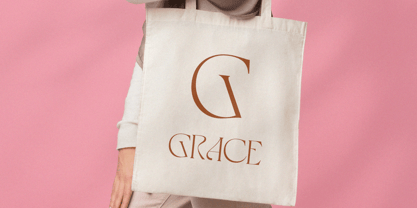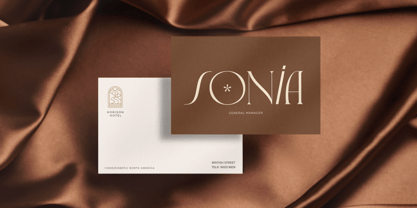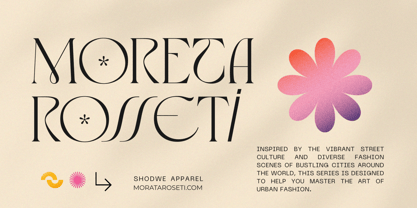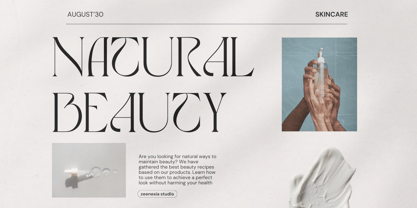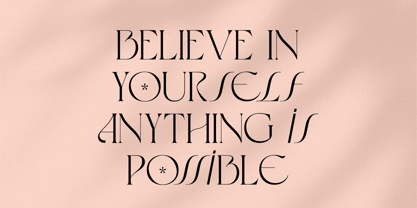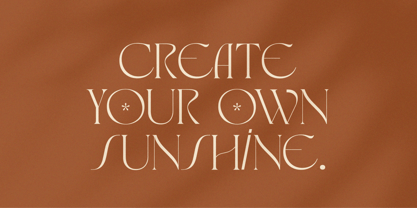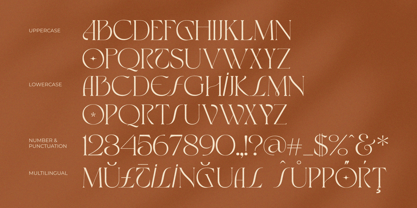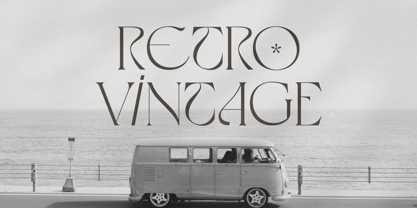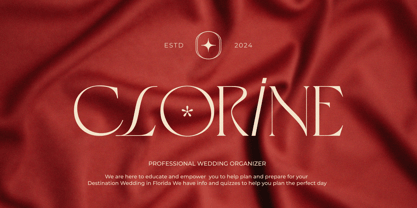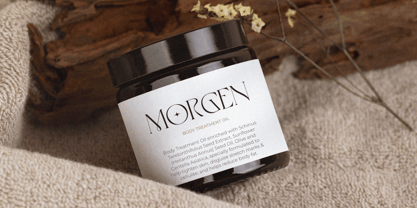
Grosia
by Zeenesia Studio
The Grosia Font Family was designed by Doni Purwoko and published by Zeenesia Studio. Grosia contains 2 styles and family package options.
Presenting Grosia, an enchantingly feminine serif font, exquisitely crafted to add a dash of romance and charm to your designs. Perfect for a myriad of applications, from digital design and presentations to handmade crafts and delightful greeting cards, Grosia's allure captivates and enchants, swiftly becoming an indispensable element in your creative tool kit. Its alluring aesthetics wonderfully embellish your creations, ensuring they make a memorable mark regardless of the occasion. Its appealing visuals enhance your work, promising to leave a distinct impression irrespective of the context.